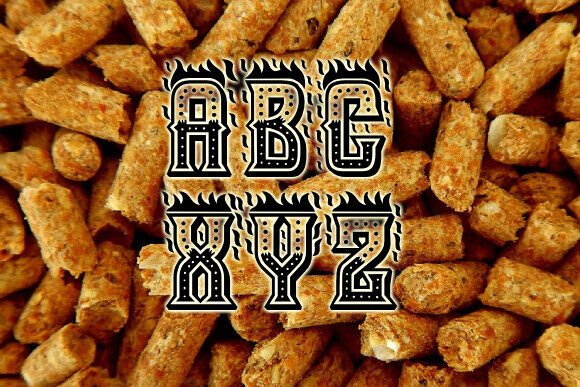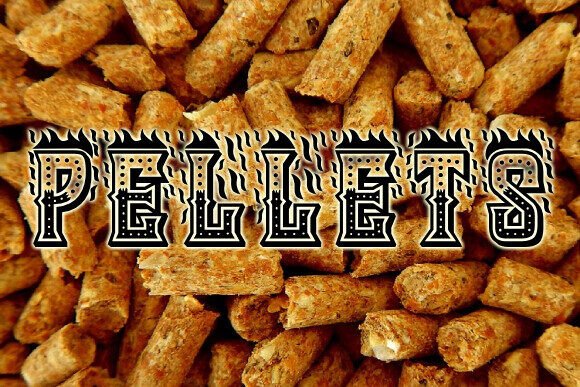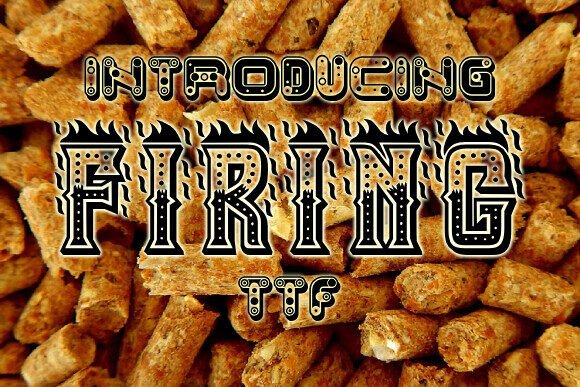
Firing Font: Ignite Your Designs with a Bold and Electrifying Display Font
In the world of typography, fonts play a crucial role in conveying the tone and personality of a brand or design. For designers and crafters looking to add a spark to their projects, the Firing font is an excellent choice. This bold and electrifying display font is designed to command attention with its fiery, flame-like details that bring a striking, energetic vibe to any project.
What is Firing Font?
Firing is a dynamic and unique display font that features bold, fiery details that resemble flames. Its electrifying style makes it perfect for designs that require a bold and attention-grabbing approach. Whether you’re working on event posters, gaming designs, or edgy branding, Firing font is sure to make your project stand out.
Key Features of Firing Font
• Bold and Electrifying Style: Firing font boasts a bold and electrifying style that is sure to grab attention.
• Fiery Details: The font features fiery, flame-like details that add a dynamic touch to any design.
• Perfect for Event Posters: Firing font is ideal for event posters, music festivals, and concert promotions.
• Great for Gaming Designs: The font’s bold and edgy style makes it perfect for gaming designs, logos, and branding.
• Edgy Branding: Firing font is suitable for edgy branding, fashion, and lifestyle designs that require a bold and striking approach.
Why Choose Firing Font?
There are several reasons why designers and crafters should consider using Firing font in their projects:
• Unique and Dynamic Style: Firing font offers a unique and dynamic style that sets it apart from other fonts.
• Attention-Grabbing: The font’s bold and electrifying style is sure to grab attention and make your project stand out.
• Versatile: Firing font can be used in a variety of design projects, from event posters to gaming designs and edgy branding.
• Easily Customizable: The font is easily customizable, allowing designers to adjust the size, color, and style to fit their project’s needs.
How to Use Firing Font Effectively
To get the most out of Firing font, here are some tips on how to use it effectively:
• Pair with Neutral Backgrounds: Pair Firing font with neutral backgrounds to make it stand out.
• Use Bold Colors: Use bold and bright colors to complement the font’s electrifying style.
• Experiment with Different Sizes: Experiment with different font sizes to create visual hierarchy and emphasis.
• Add Texture and Patterns: Add texture and patterns to your design to give it a more dynamic and edgy look.
In conclusion, Firing font is a bold and electrifying display font that is perfect for designers and crafters looking to add a spark to their projects. Its unique and dynamic style, attention-grabbing approach, and versatility make it an excellent choice for event posters, gaming designs, and edgy branding. With its easily customizable features and tips on how to use it effectively, Firing font is sure to ignite your designs and take them to the next level.